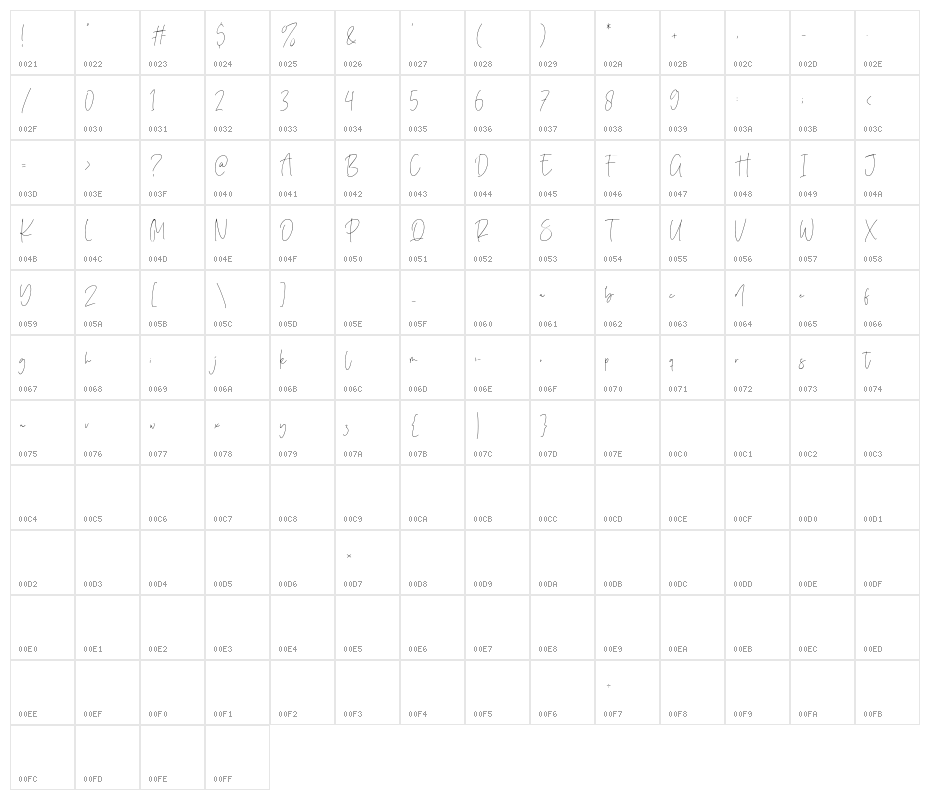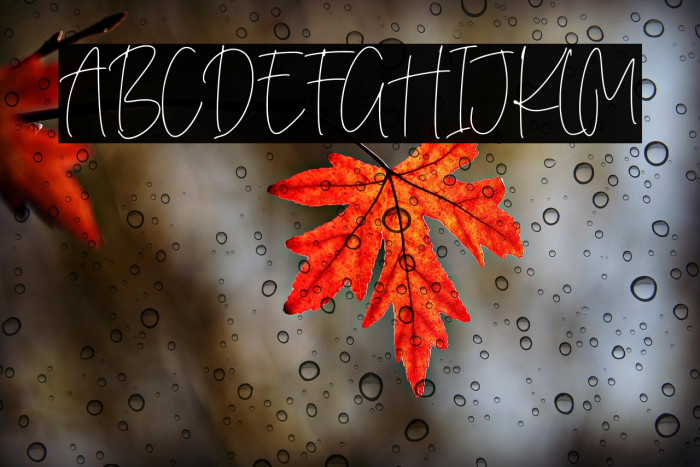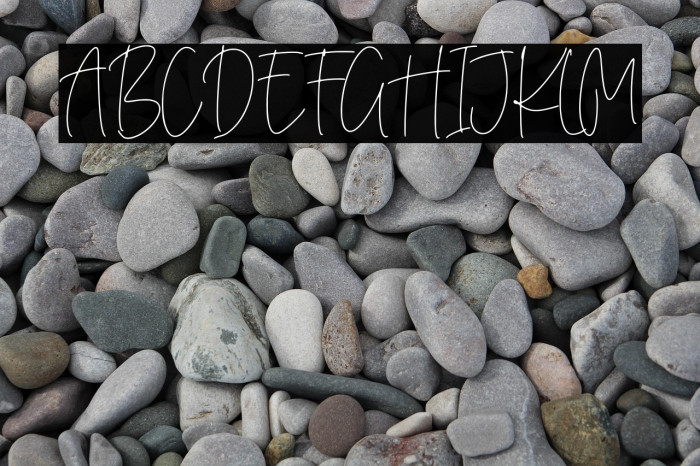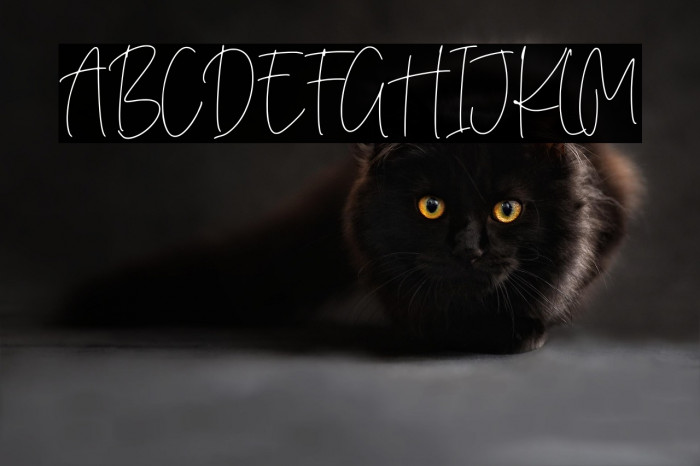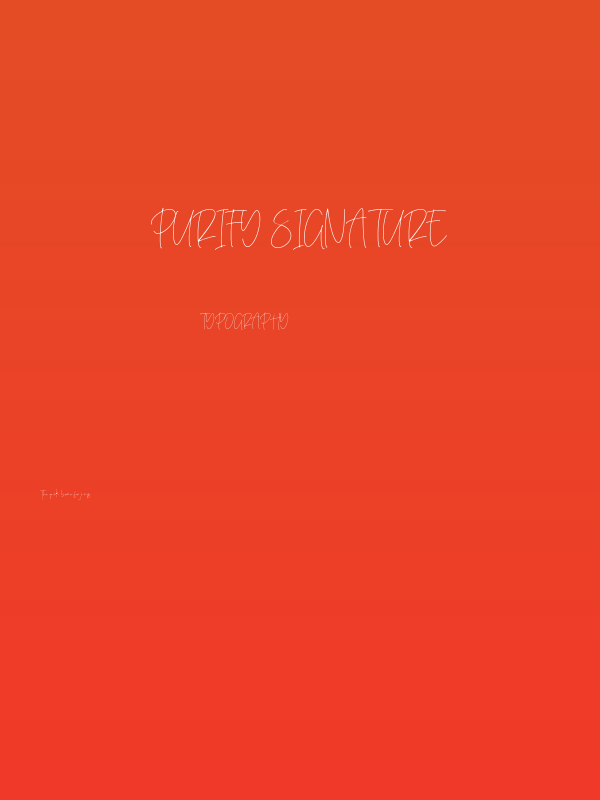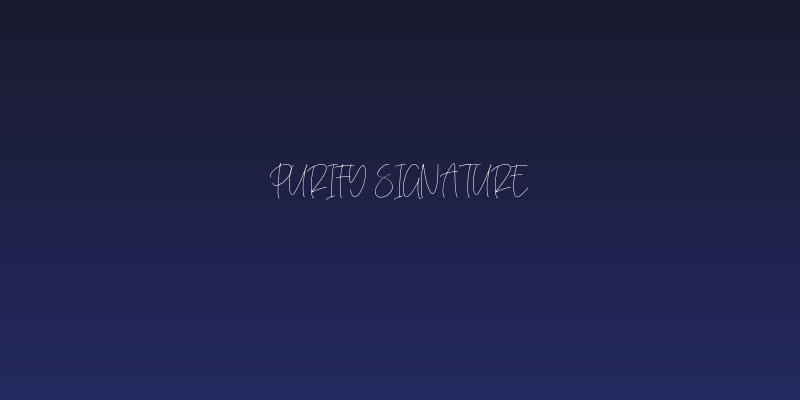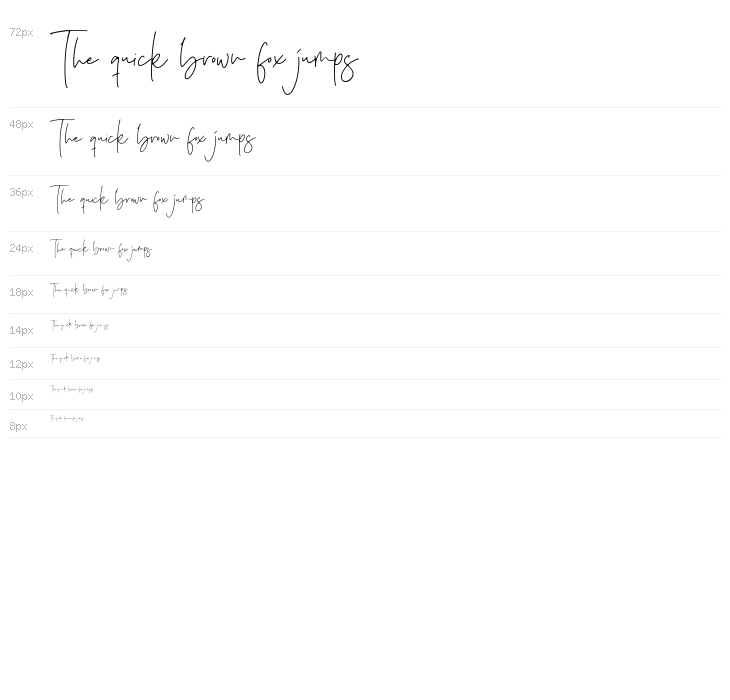
Purify Signature Font
Purify Signature Description
A loose, flowing handwritten script with tall, narrow letterforms and irregular baseline, mimicking a natural signature style. The strokes are thin and slightly uneven, giving an organic, personal feel.
| Overall Style | Decorative, Casual, Modern |
| Use Case | Logos, Signatures, Headlines, Invitations |
| Proposed Projects | Personal branding, invitations, greeting cards, social media graphics, logo design, quotes. |